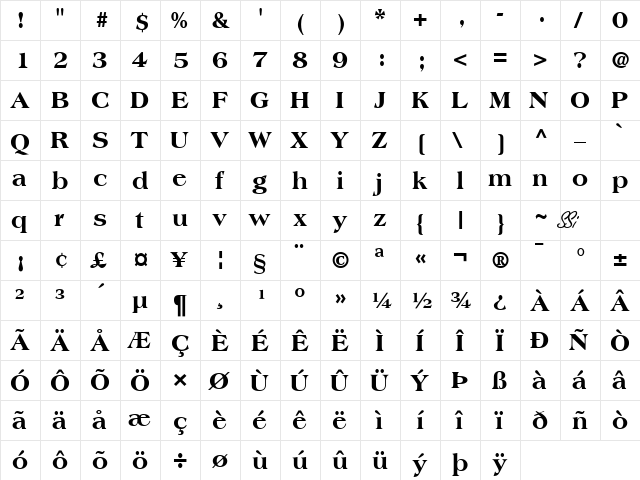
Countryside Black SSi Extra Bold
Design Context for Countryside Black SSi Typeface
Countryside Black SSi is a composed and adaptable typeface that performs quietly and consistently across a wide range of design contexts. Its bold stroke weight gives it real presence on the page.
Pro Tip: Pair Countryside Black SSi with a font of contrasting weight or personality to build a more expressive typographic hierarchy.